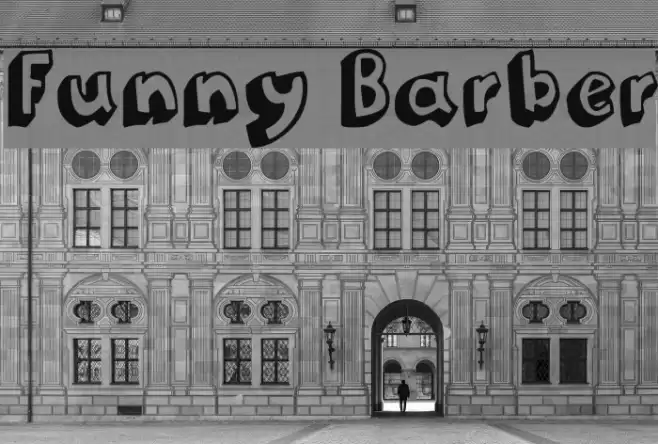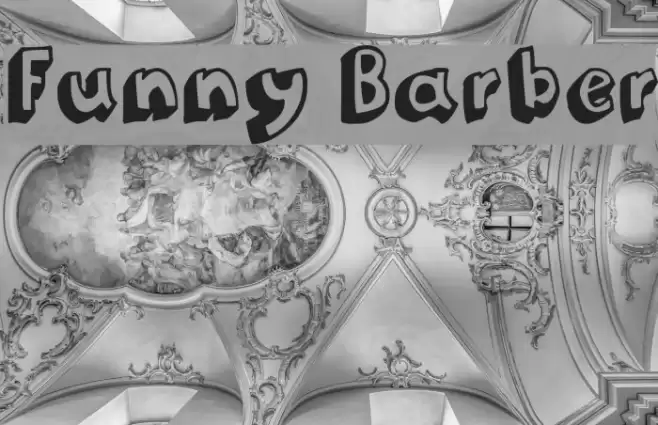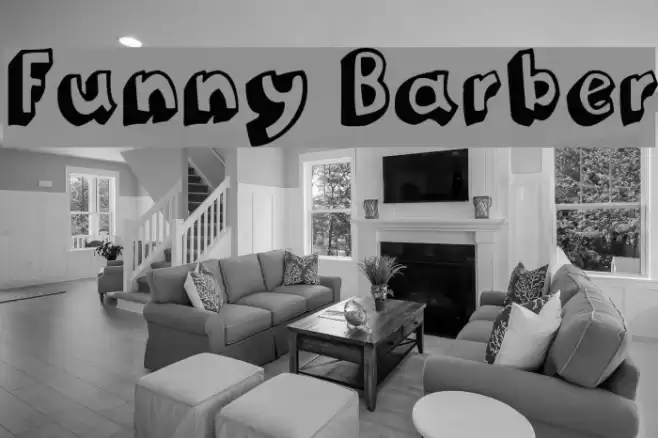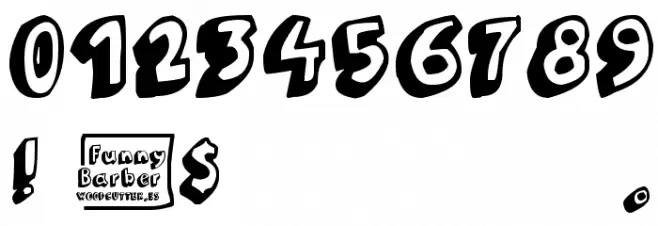
Funny Barber Font
Funny Barber Description
This playful and bold font features a unique, hand-drawn style with a three-dimensional shadow effect that gives each character a lively and dynamic appearance. The letters are slightly irregular, adding to the whimsical and informal feel of the typeface. The bold strokes and exaggerated curves make it highly legible and eye-catching, perfect for designs that require a fun and energetic vibe. The font includes a full set of uppercase and lowercase letters, numbers, and a selection of special characters, all maintaining the same quirky and engaging style.
A playful, bold font with a hand-drawn, three-dimensional shadow effect from Uncategorized fonts.
- Proposed Projects: Ideal for children's book covers, playful branding, comic strips, and party invitations.
- Overall Style: Playful, Whimsical